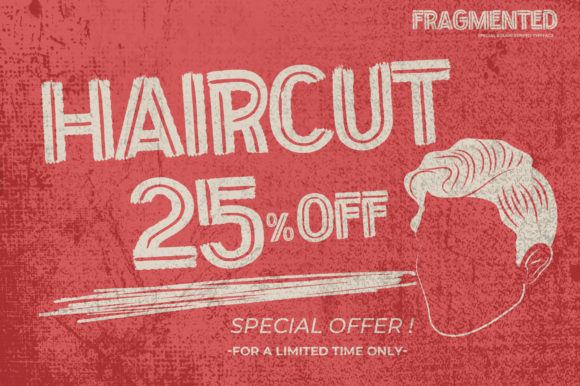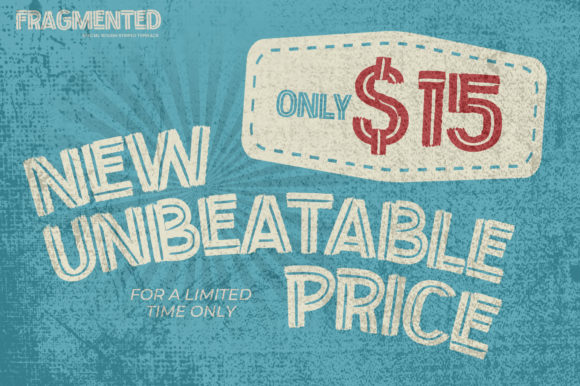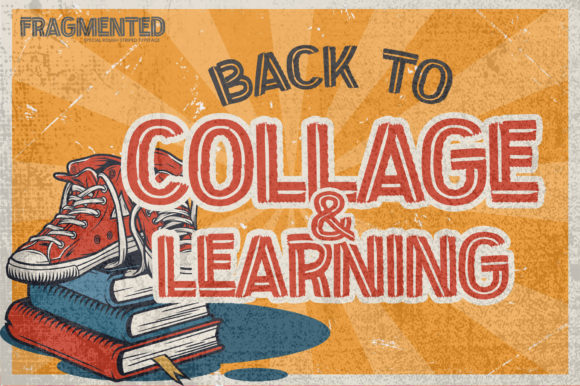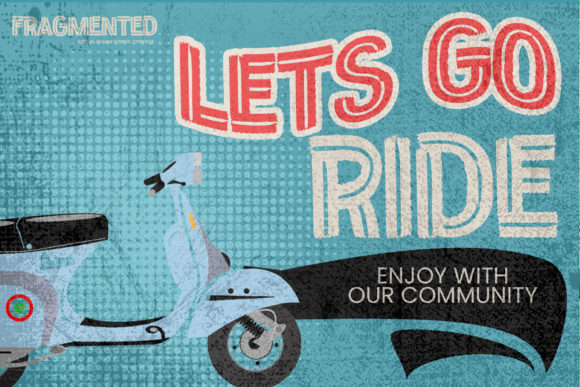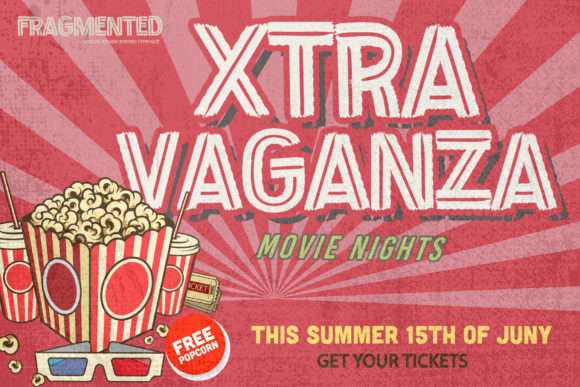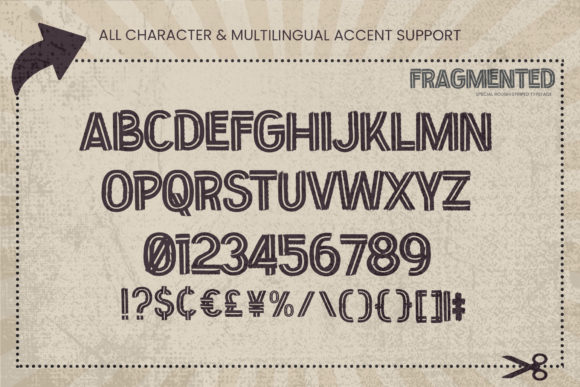
Introducing Fragmented Font: The Ultimate Display Font for Creative Designs
Are you tired of using the same old fonts for your designs? Do you want to add a touch of uniqueness and playfulness to your creations? Look no further than Fragmented Font, a cool, bold, and uniquely designed display font that’s perfect for cartoon-related designs, children’s games, and any project that requires a lovely touch.
What is Fragmented Font?
Fragmented Font is a display font that’s designed to add a touch of whimsy and fun to your designs. Its unique and bold design makes it perfect for headlines, titles, and any other text that needs to stand out. The font is made up of fragmented letters that are carefully crafted to create a playful and eye-catching effect.
Key Features of Fragmented Font
- Unique Design: Fragmented Font has a one-of-a-kind design that’s sure to grab attention. Its fragmented letters are carefully crafted to create a playful and fun effect.
- Bold and Eye-Catching: The font is designed to be bold and eye-catching, making it perfect for headlines, titles, and any other text that needs to stand out.
- Playful and Whimsical: Fragmented Font has a playful and whimsical feel that’s perfect for cartoon-related designs, children’s games, and any project that requires a fun and lighthearted touch.
- High-Quality Design: The font is designed with high-quality and precision, ensuring that it looks great in any size or resolution.
Uses of Fragmented Font
Fragmented Font is a versatile font that can be used for a variety of design projects. Here are some ideas to get you started:
- Cartoon-Related Designs: The font’s playful and whimsical design makes it perfect for cartoon-related designs, such as character logos, titles, and headlines.
- Children’s Games: Fragmented Font is a great choice for children’s games, as it adds a fun and playful touch to game titles, buttons, and other UI elements.
- Posters and Flyers: The font’s bold and eye-catching design makes it perfect for posters and flyers that need to grab attention.
- Social Media Graphics: Fragmented Font can be used to create eye-catching social media graphics, such as Facebook posts, Instagram stories, and Twitter headers.
Benefits of Using Fragmented Font
Here are some benefits of using Fragmented Font for your design projects:
- Adds a Unique Touch: The font’s unique design adds a touch of personality to your designs, setting them apart from others.
- Increases Engagement: The font’s playful and whimsical design can increase engagement and interaction with your audience.
- Versatile: Fragmented Font can be used for a variety of design projects, from cartoon-related designs to social media graphics.
Tips for Using Fragmented Font
Here are some tips for using Fragmented Font effectively:
- Use it for Headlines and Titles: The font’s bold and eye-catching design makes it perfect for headlines and titles.
- Experiment with Colors: Try experimenting with different colors to add an extra touch of personality to your designs.
- Use it in Combination with Other Fonts: Fragmented Font can be used in combination with other fonts to create a unique and visually appealing design.
In conclusion, Fragmented Font is a unique and versatile display font that’s perfect for designers and crafters looking to add a touch of whimsy and fun to their designs. Its bold and eye-catching design makes it perfect for cartoon-related designs, children’s games, and any project that requires a lovely touch. With its high-quality design and ease of use, Fragmented Font is a great choice for any design project.